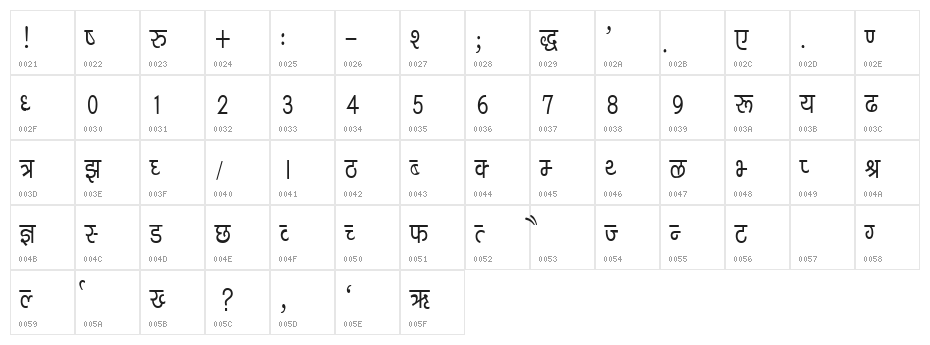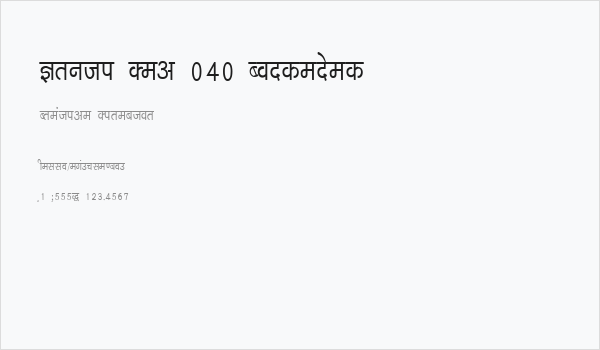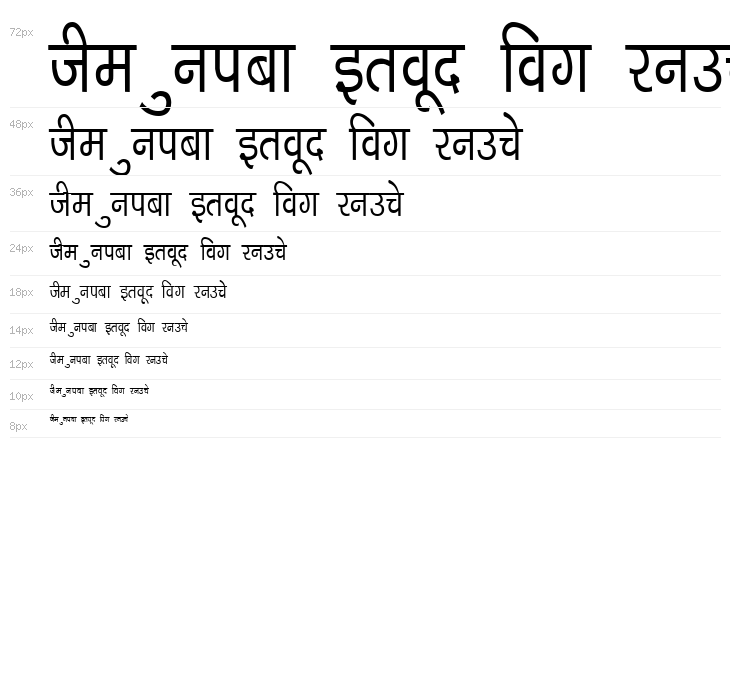
Kruti Dev 040 Condensed Font
Kruti Dev 040 Condensed Description
This font is a Devanagari script with a condensed style, featuring clean and precise lines that enhance readability. The characters are well-defined with a consistent stroke width, giving it a uniform appearance. The numerals are distinct and align well with the overall design, maintaining clarity. Special characters are integrated seamlessly, complementing the script's aesthetic. The font's condensed nature allows for efficient use of space, making it suitable for various applications where space is limited. Its traditional yet modern look makes it versatile for both digital and print media.
| Use Case | Headlines, Body text |
| Proposed Projects | Ideal for newspapers, magazines, educational materials, and digital content requiring a traditional yet modern Devanagari script. |